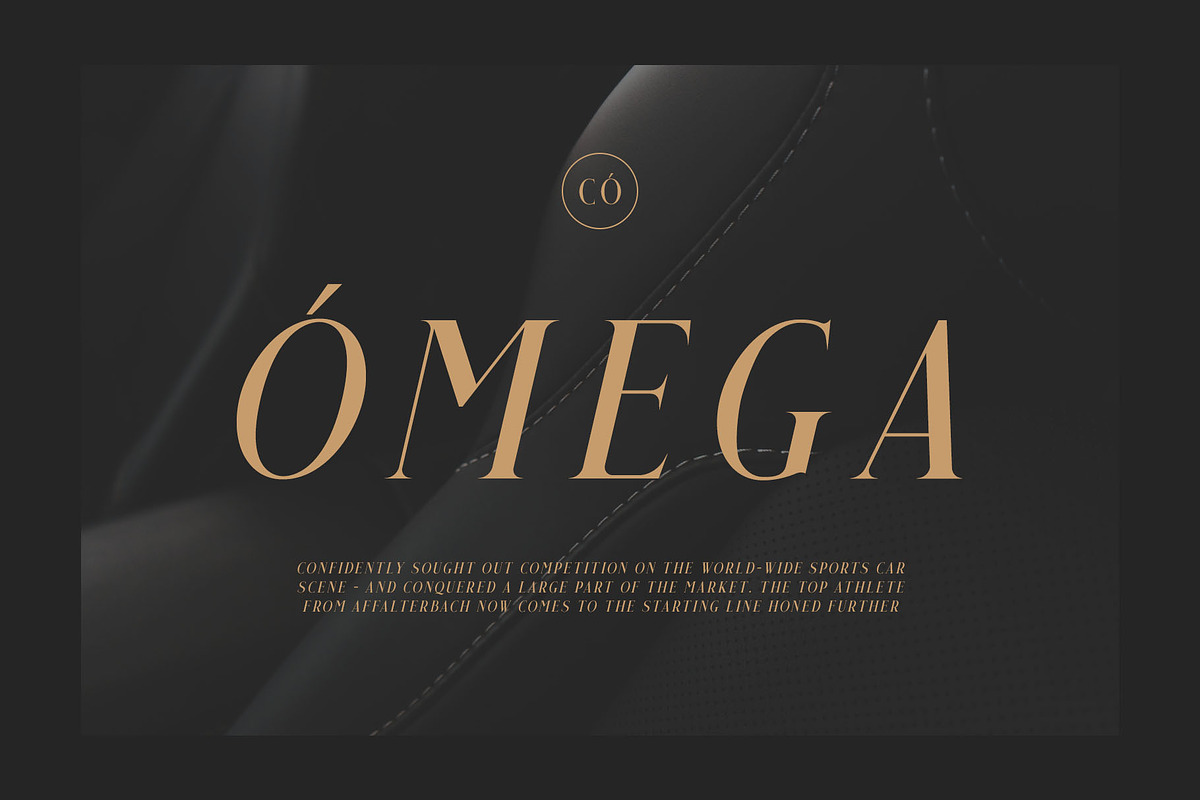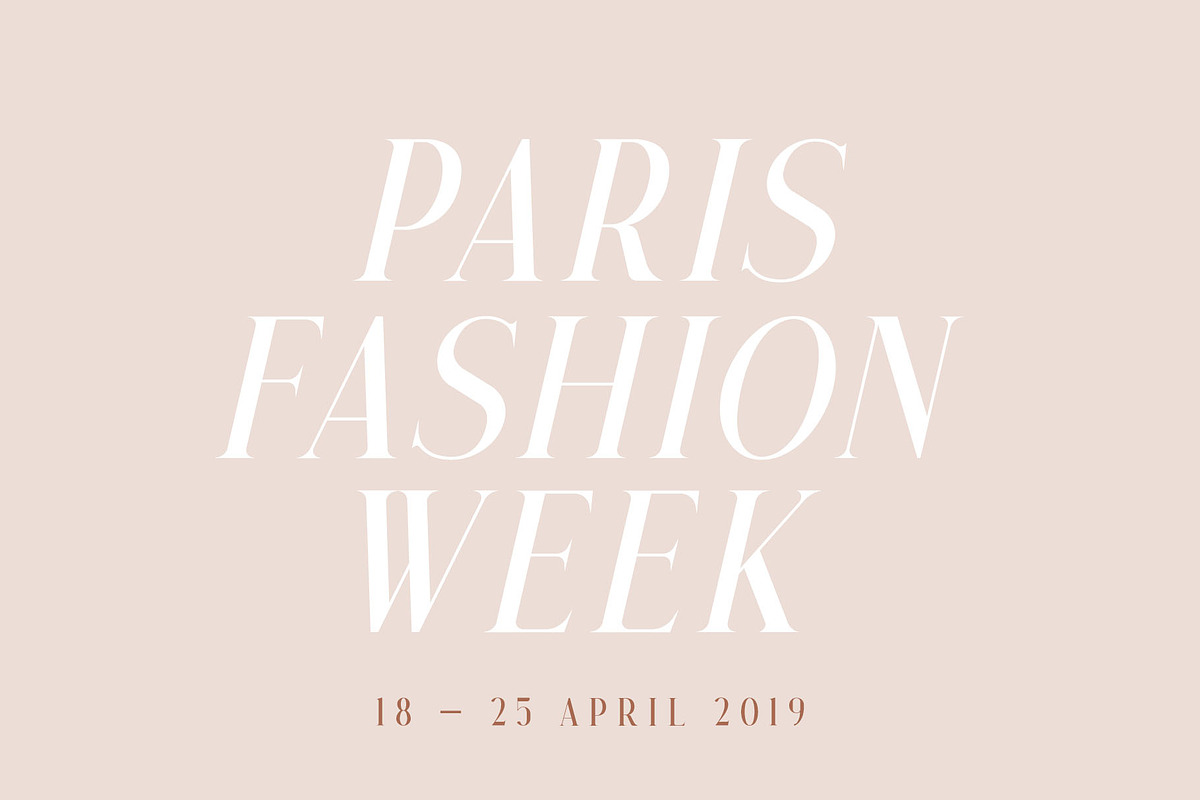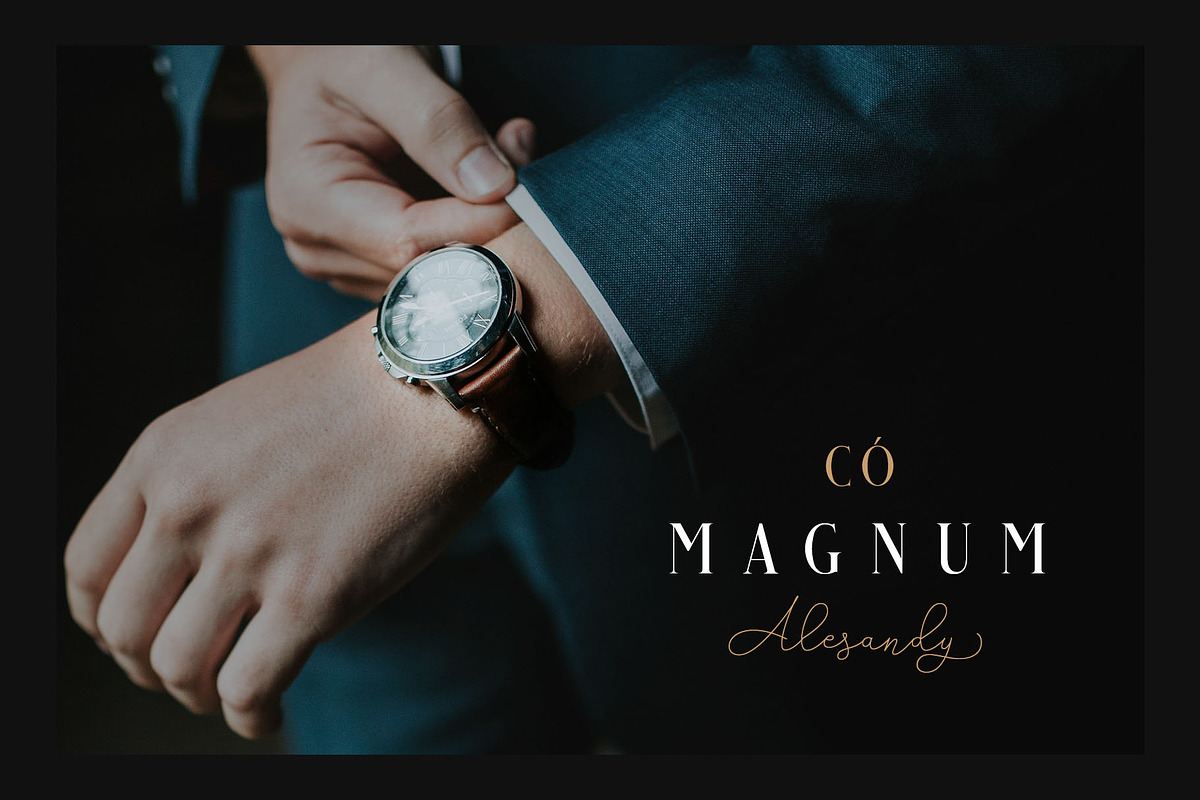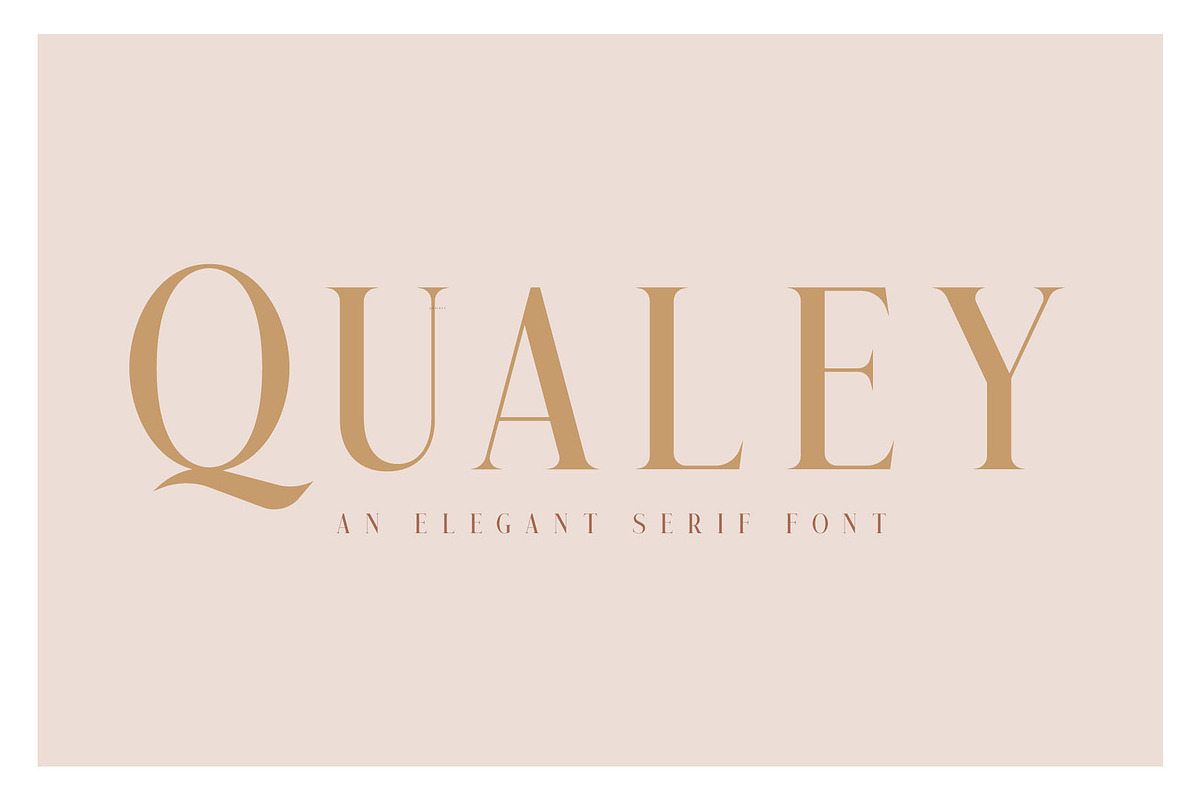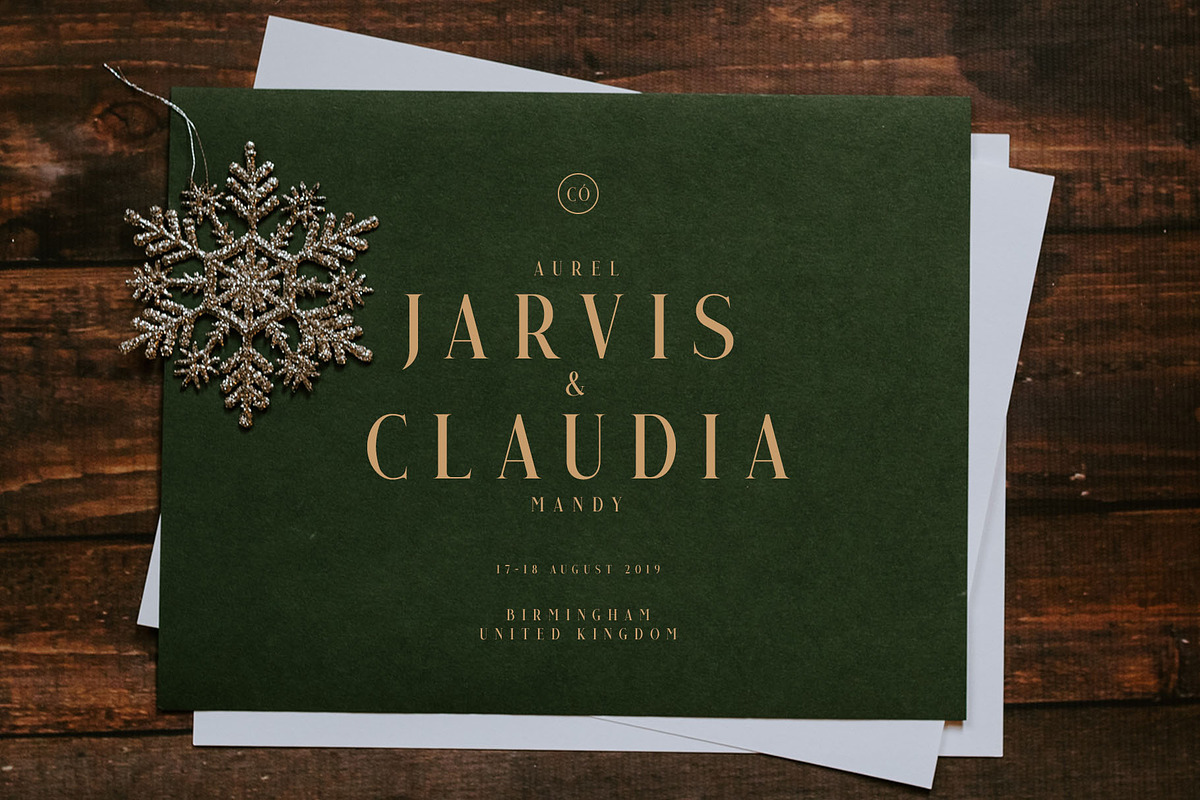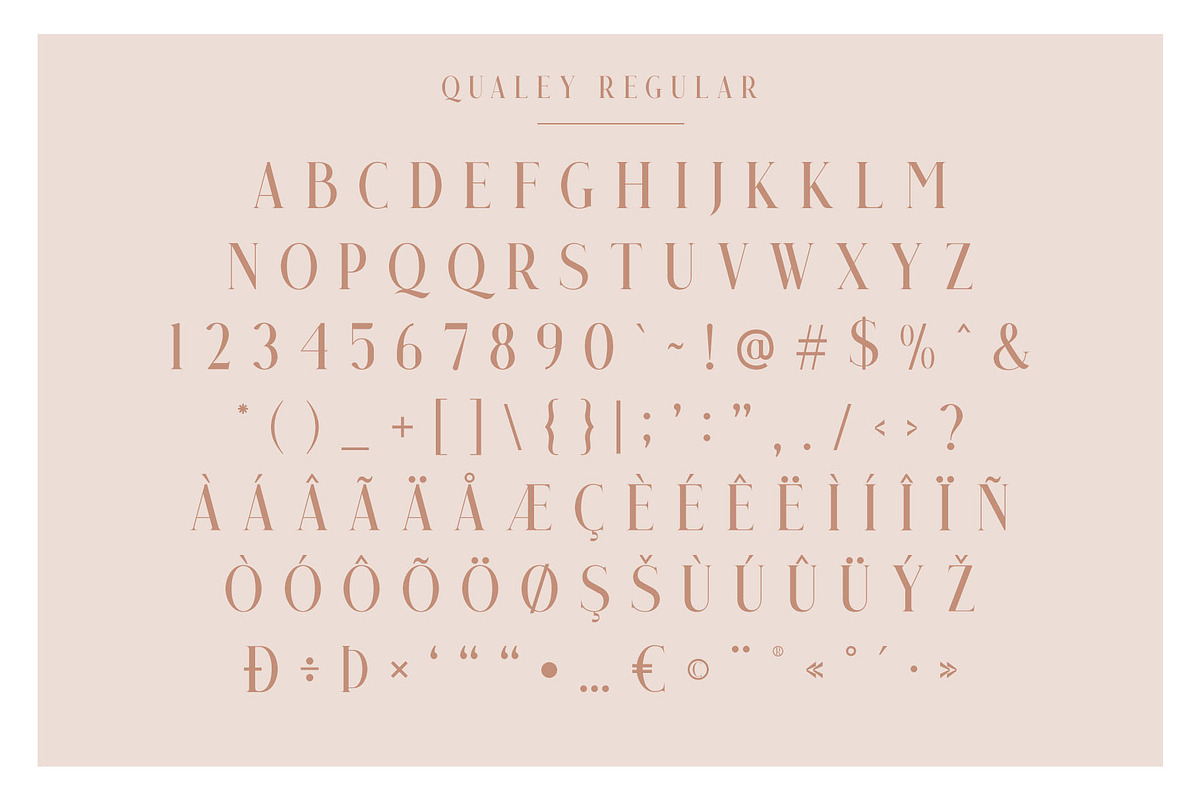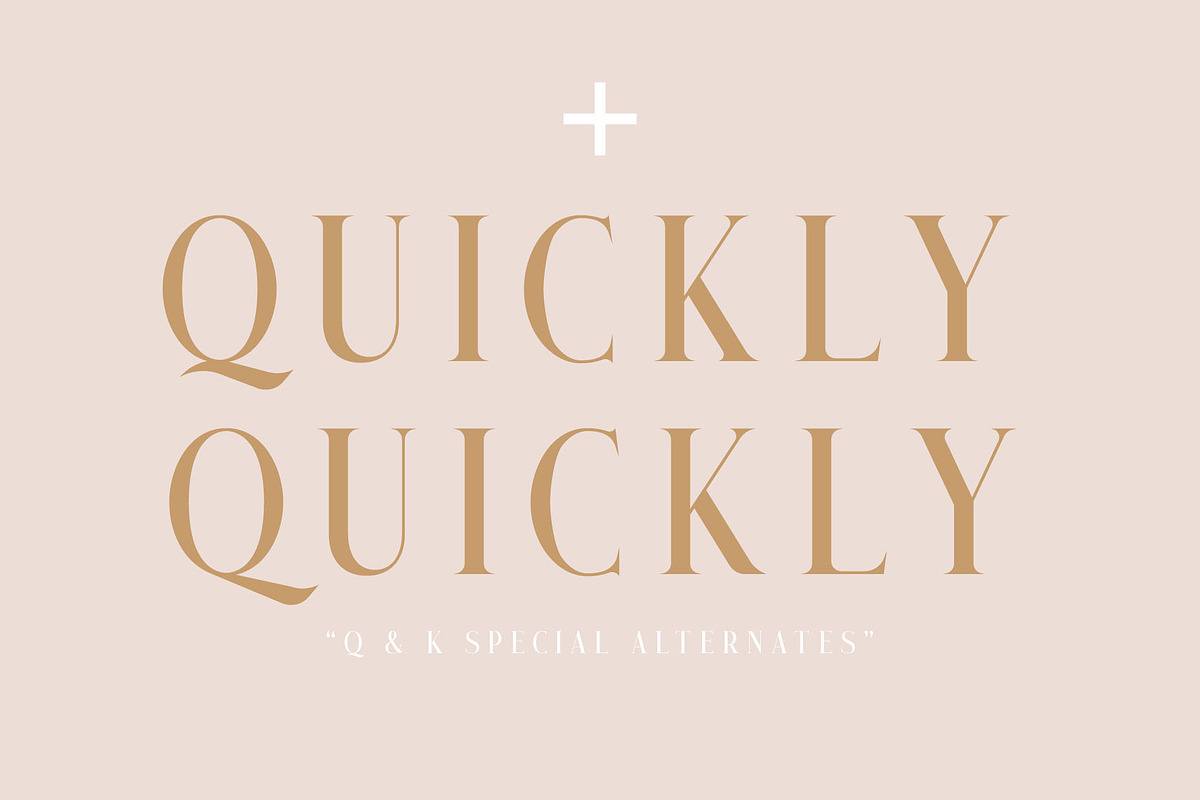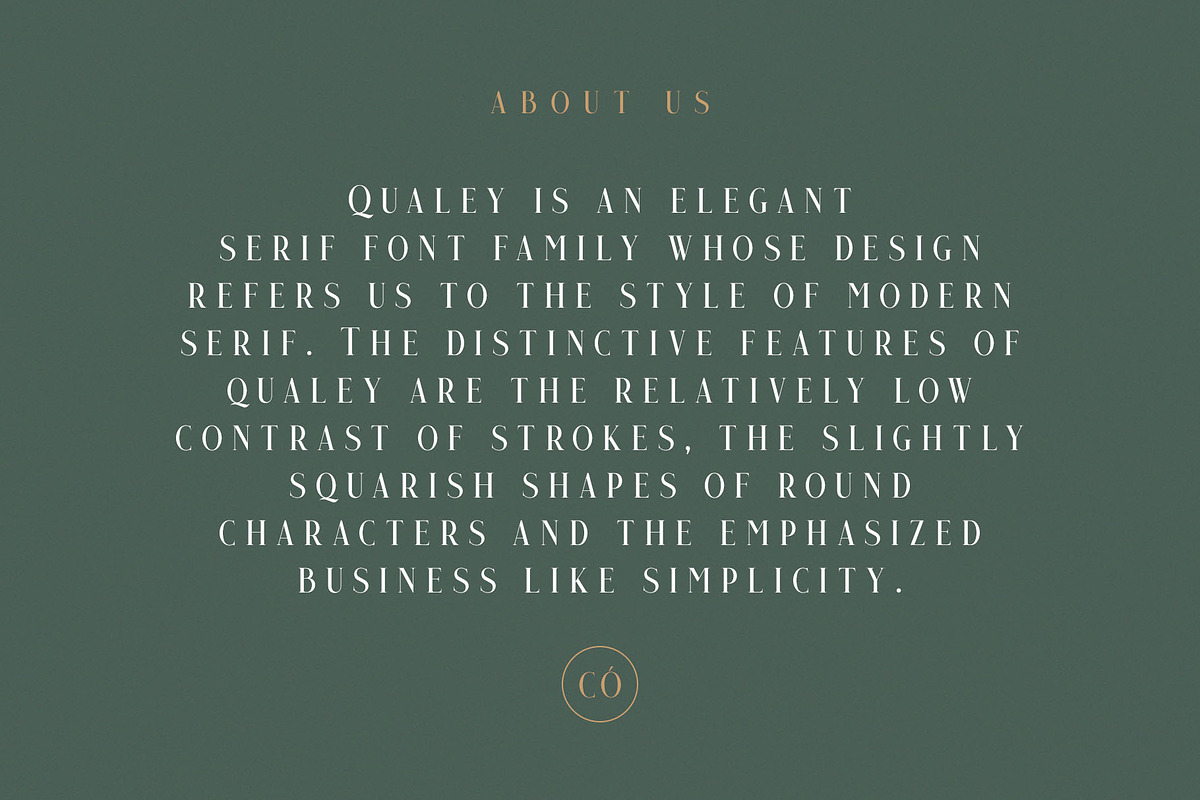
Qualey - Elegant Serif Font
Introducing New Font : Qualey - Elegant Serif Font
Qualey - Elegant Serif Font is a modern serif font family whose design refers us to the style of modern serif Font. The distinctive features of Qualey - Elegant Serif Font are the relatively high contrast of strokes, the slightly squarish shapes of sharp characters and the emphasized business like simplicity.
Qualey - Elegant Serif Font features an original stylistic set which, when turned on, adds features of typical pointed-pen sans serif to some of the lowercase characters. In addition, Qualey - Elegant Serif Font has small capitals for Latin and as well as several interesting ligatures.
Qualey - Elegant Serif Font has been crafted from scratch with a structural logic of its own: a fusion of pure geometry and optical balance. By combining a variety of styles Qualey - Elegant Serif Font is suitable for Logo, greeting cards, quotes, posters, branding, name card, stationary, design title, blog header, art quote, typography
Qualey - Elegant Serif Font also suitable for art, modern envelope lettering or book design, happening style like handdrawn design or watercolor design theme, craft design, any DIY project, book title, wedding font, pop vintage design, or any purpose to make our art/design project look pretty and trendy.
2. Standard Ligatures (Special Alternates for K and Q)
3. Numerals & Punctuations (OpenType Standard)
4. Accents (Multilingual characters)AÀÁÂÃÄÅCÇDÐEÈÉÊËIÌÍÎÏNÑOØÒÓÔÕÖUÙÜÚÛWYÝŸỲŸÆŒßÞþ
- 2. Standard Ligatures (Special Alternates for K and Q)
- 3. Numerals & Punctuations (OpenType Standard)
- 4. Accents (Multilingual characters)AÀÁÂÃÄÅCÇDÐEÈÉÊËIÌÍÎÏNÑOØÒÓÔÕÖUÙÜÚÛWYÝŸỲŸÆŒßÞþ